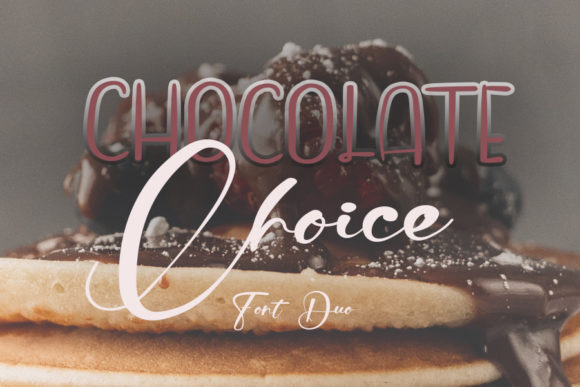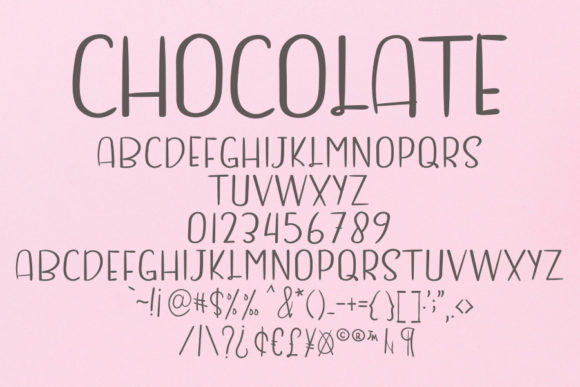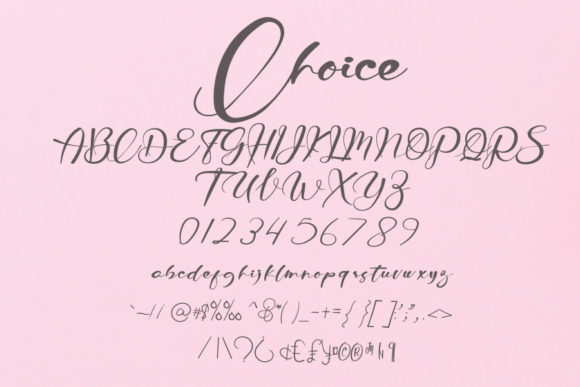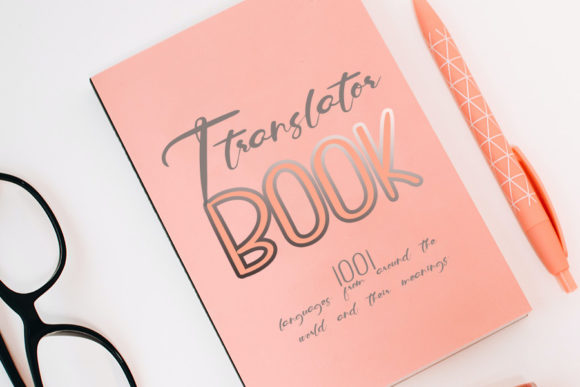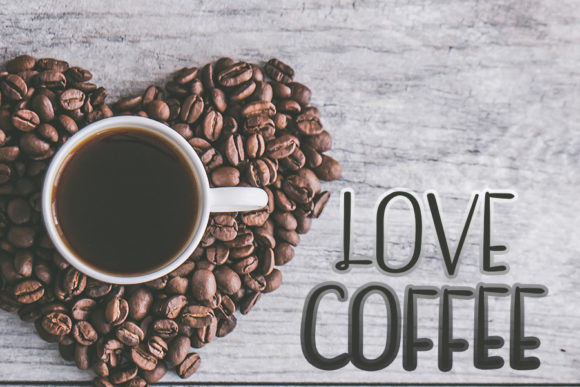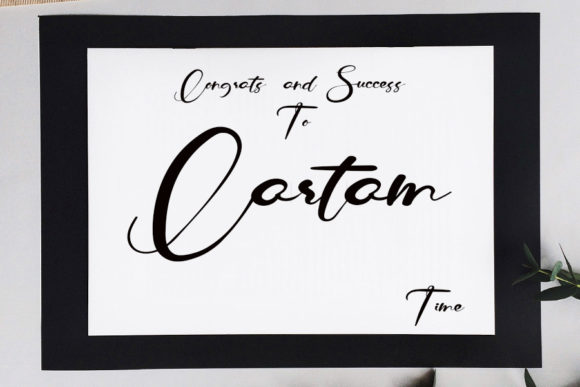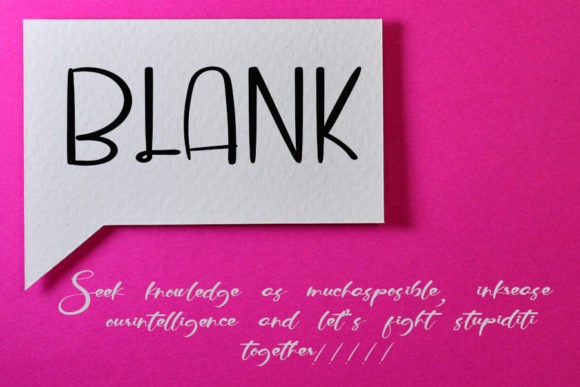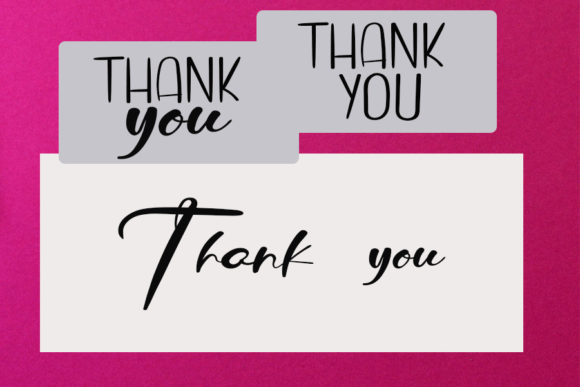
Chocolate Choice Font
Chocolate Choice Font: A Captivating Script for Contemporary Designs
The Chocolate Choice font is a delightful handwritten script that blends classic calligraphy with a modern vibe. Its friendly and inviting character makes it perfect for various creative projects.
Versatility in Design Applications
Chocolate Choice shines in multiple contexts. From wedding invitations to social media graphics, it adds warmth and playfulness to designs. Its handcrafted appearance conveys authenticity in both personal and professional projects.
In logo design and branding materials, this font brings a unique charm. Its classic elegance combined with a playful character creates memorable visual identities.
Enhancing Communication with Chocolate Choice
The font’s high legibility ensures clear message delivery across various mediums. It enhances visual storytelling, making it ideal for greeting cards and event stationery.
For packaging design, Chocolate Choice adds a personal touch. Its warm aesthetic can increase emotional connections with consumers, improving engagement.
Chocolate Choice in Creative Projects
This font’s versatility extends to numerous creative applications. It’s perfect for adding sophistication to branding visuals while maintaining a friendly appeal.
Balancing Tradition and Modernity
Chocolate Choice strikes a balance between classic and contemporary styles. This makes it valuable for designers aiming to create timeless yet current visuals.
Conclusion: A Font for Expressive Design
Chocolate Choice is a versatile script that brings warmth to a wide array of design applications. From wedding stationery to branding materials, it infuses projects with charm that connects with audiences. As you explore its possibilities, you’ll find Chocolate Choice an essential tool for creating visually engaging work with a perfect blend of elegance and contemporary style.